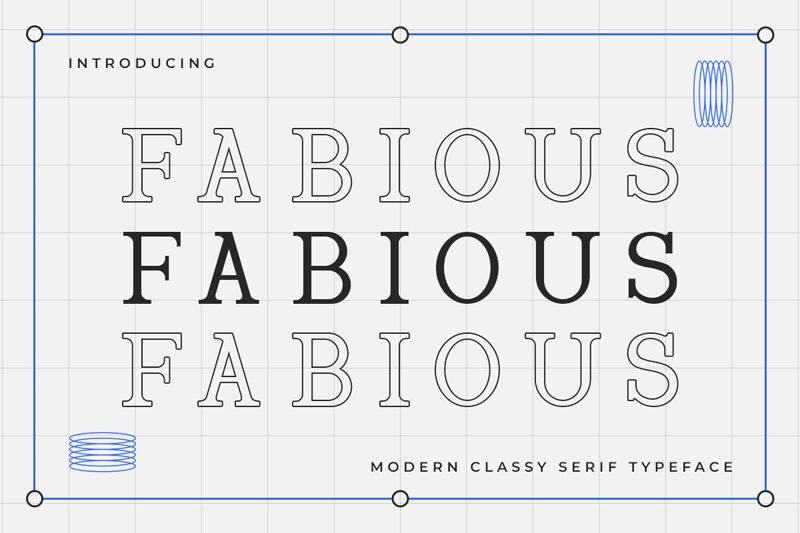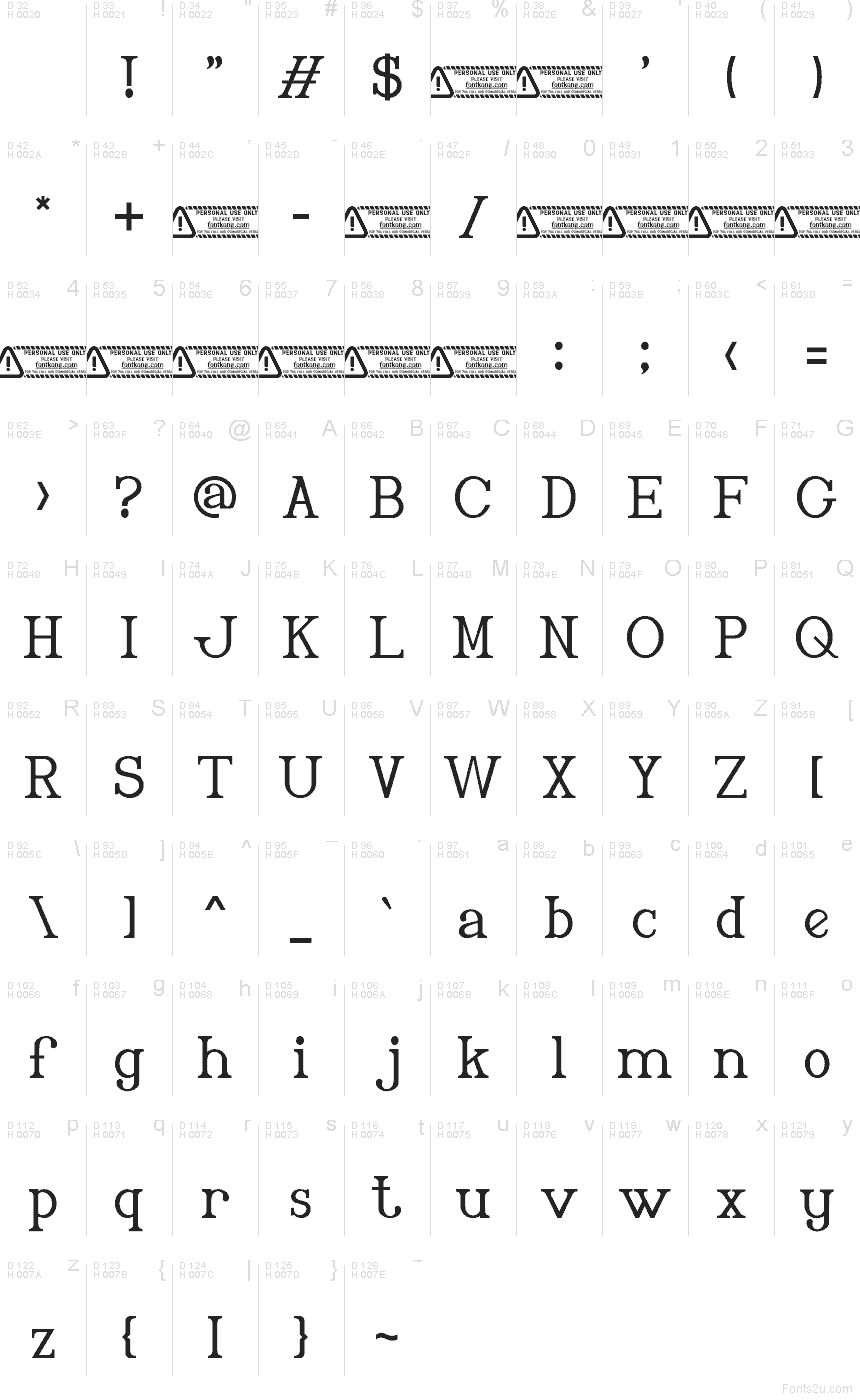
Fabious
Fabious font by Kong Font is a free serif typeface that threads the needle between classic bookish warmth and crisp modern sharpness. Its letters feel steady and grounded, with subtle curves and tidy serifs that give text a quiet confidence rather than shouting for attention. The spacing feels calm and breathable, so words sit together in a smooth, readable line whether you set them small or push them large on the page.
Using Fabious, you get a serif that works beautifully for editorial headlines, book covers, brand identities, packaging, invitations, and thoughtful posters. It brings a literary, slightly formal tone without feeling stuffy, making it a natural fit for studios that need one reliable serif across multiple projects. This free font pairs especially well with a clean geometric sans for body copy—keep Fabious for titles and pull quotes, and let the sans handle long paragraphs.